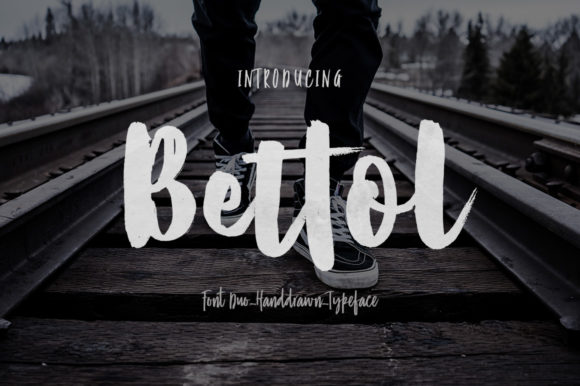
The Ultimate Guide to Bettol Duo Font: Elevate Your Designs with a Striking Font Duo
The Bettol is a striking font duo that has a very natural writing style and great readability. It’s perfect for making any design stand out! In this article, I’ll share my experience with the Bettol Duo Font, its features, and how to make the most of it in your designs.
An Honest Review of Bettol Duo Font
• ✨ Natural writing style: The Bettol Duo Font has a unique, handwritten feel that makes it perfect for designs that require a personal touch.
• ✅ Great readability: The font is clear and easy to read, making it suitable for body text and headings.
• 💡 Versatility: The font duo comes with multiple weights and styles, allowing you to experiment with different looks and feels.
While the Bettol Duo Font is an excellent choice, there are a few things to keep in mind: 🤔
• ⚠️ Limited use in very small sizes: Like many script fonts, the Bettol Duo Font may not be the best choice for very small text sizes, as some details may get lost.
• ⚠️ Some characters may require manual kerning: Depending on your design, you might need to adjust the kerning of certain character combinations for optimal results.
The Designer Inspiration Behind Bettol Duo Font
The Bettol Duo Font was designed with the goal of creating a unique, handwritten font that would bring a personal touch to designs. The designer aimed to create a font that would be both elegant and approachable, making it perfect for a wide range of design projects.
Q: What is the Bettol Duo Font?
A: The Bettol Duo Font is a striking font duo with a natural writing style and great readability. It’s perfect for making any design stand out!